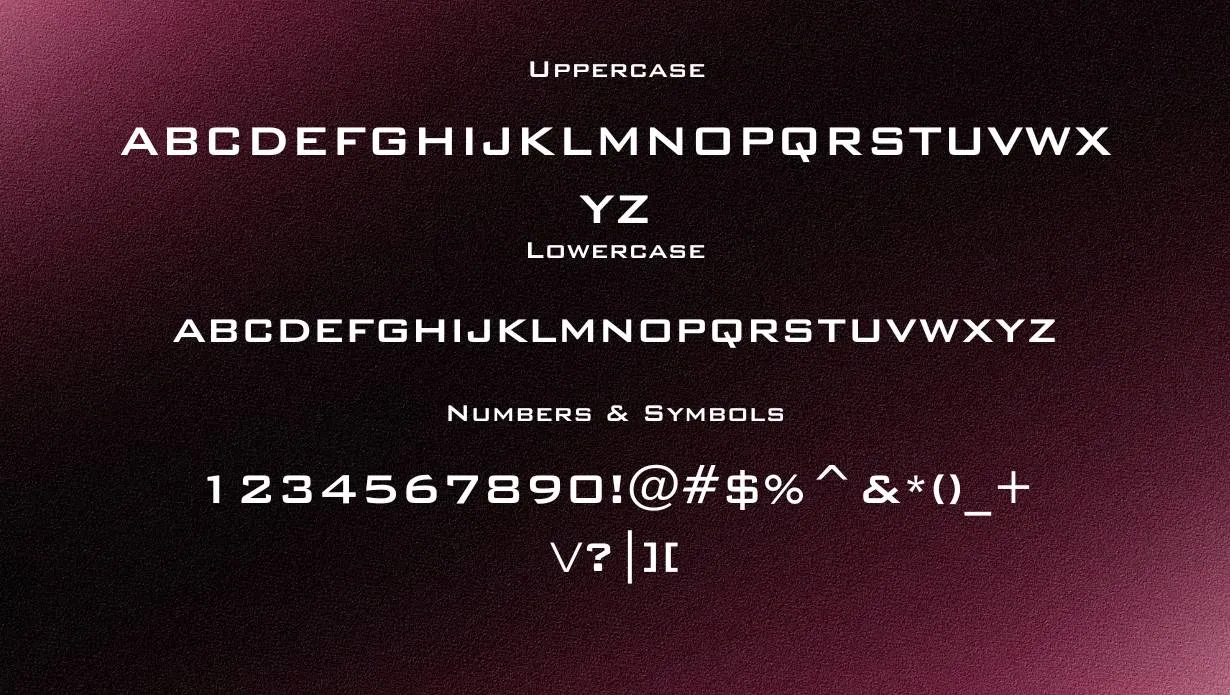
Wolverine Font is a bold and expressive typeface with a strong and distinctive design. It’s commonly used in advertising, headlines, and graphic design where a modern and eye-catching appearance is essential.
Wolverine Font Family
| Name | Wolverine Font |
| Designer | Iconian Fonts |
The font’s powerful letterforms command attention and create a memorable visual impact.